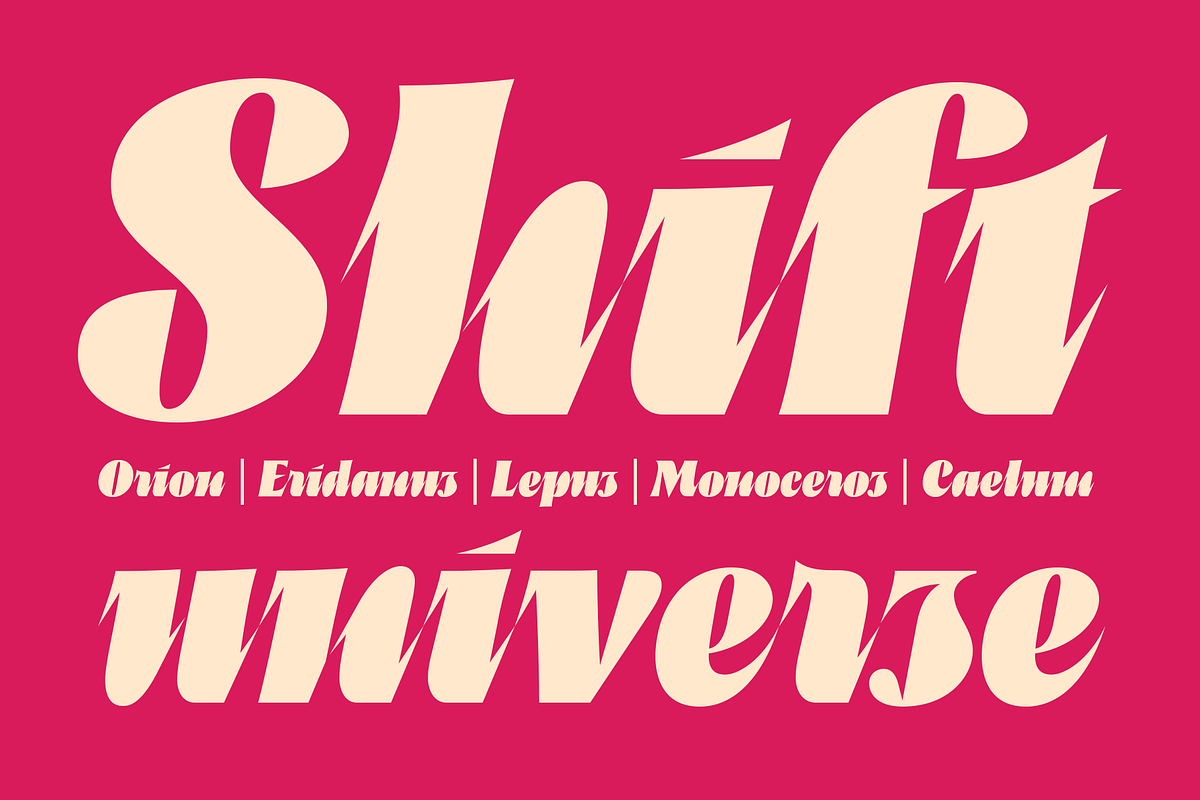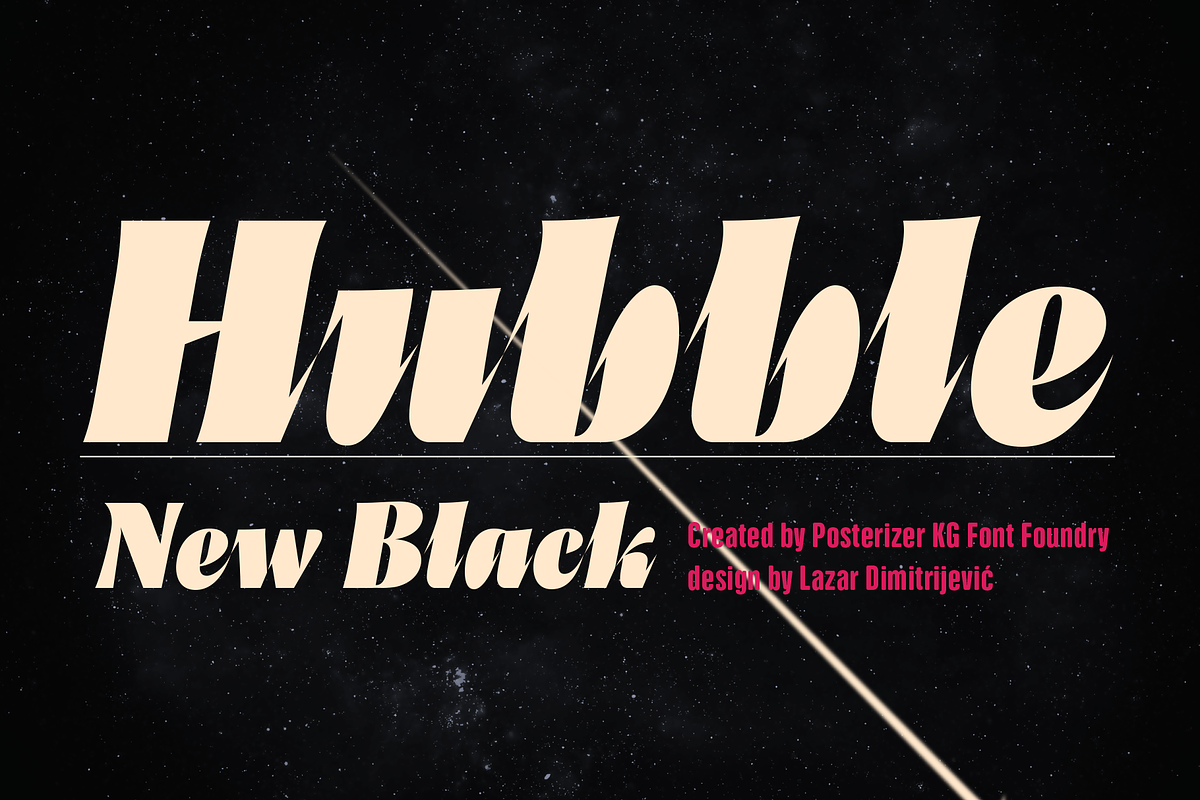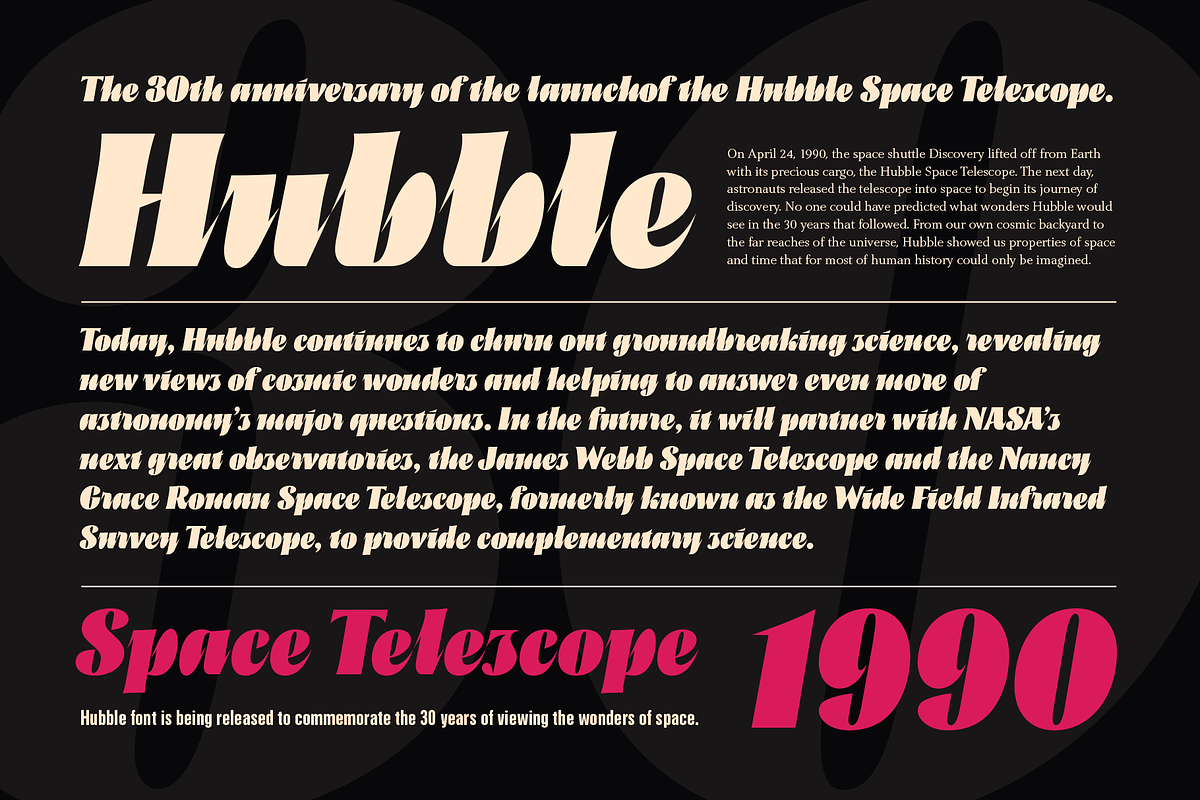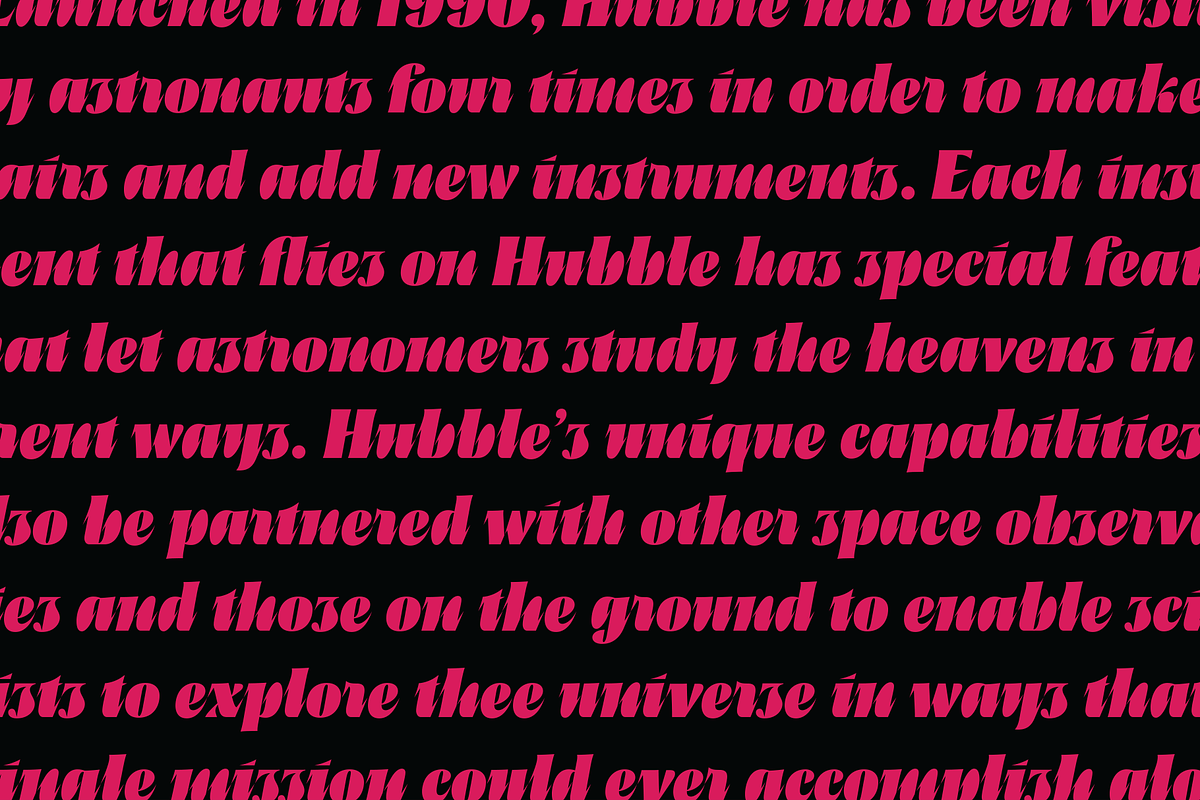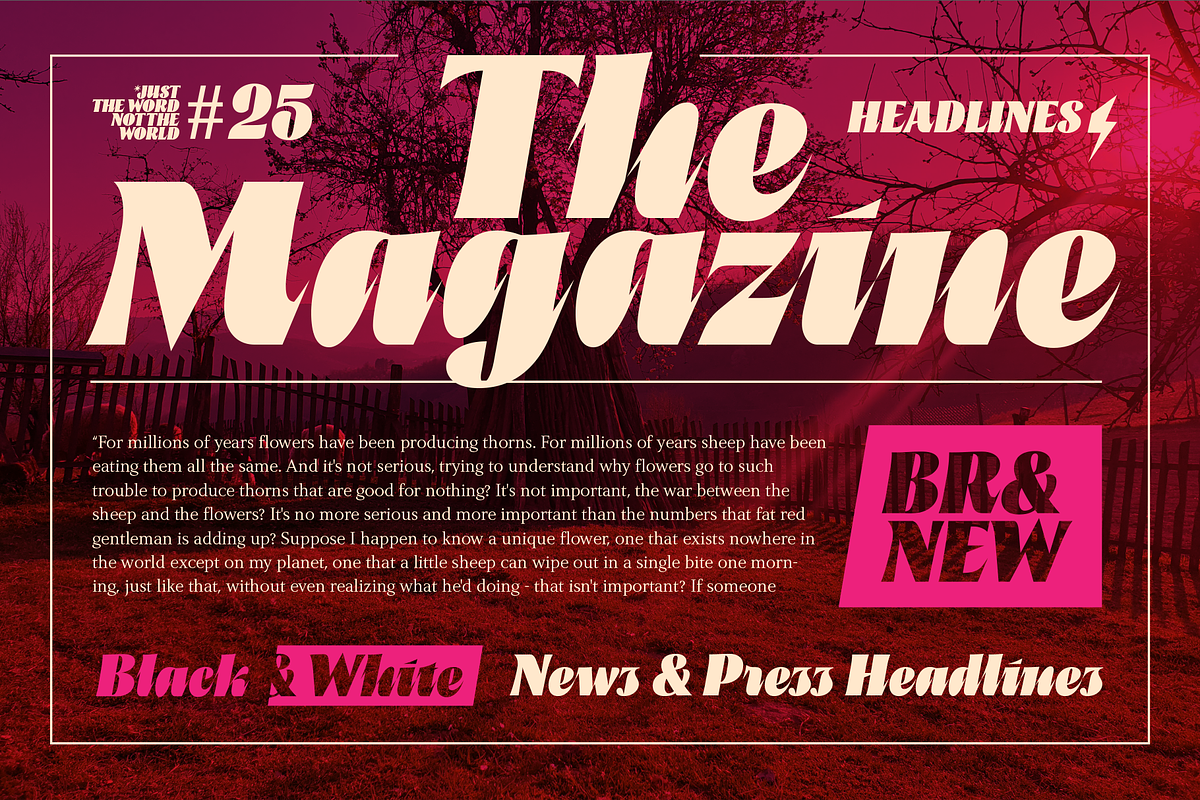
Hubble
Hubble font is being released to commemorate the Hubble Space Telescope's 30 years of viewing the wonders of space. Hubble is a strong, dynamic, and rhythmic display typeface with thorny serifs, of authentic appearance, which makes it suitable for typographic formatting of shorter texts as logotype design, headlines, etc.